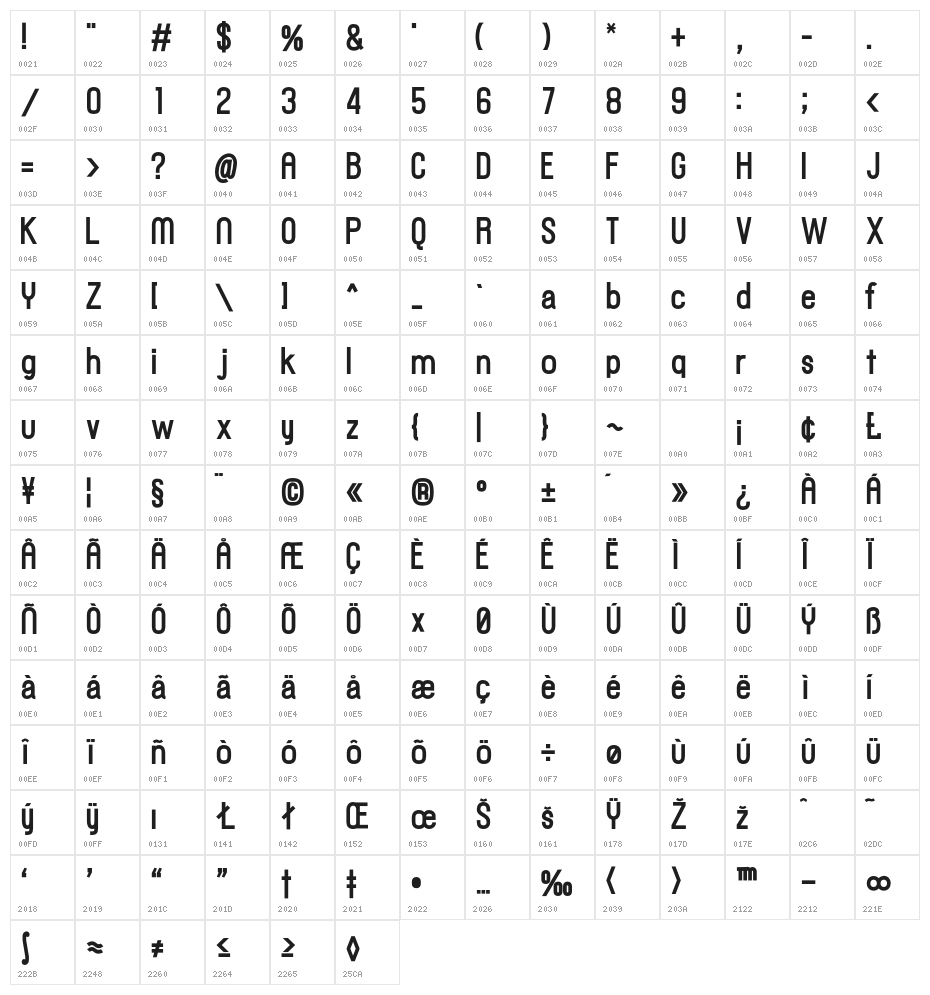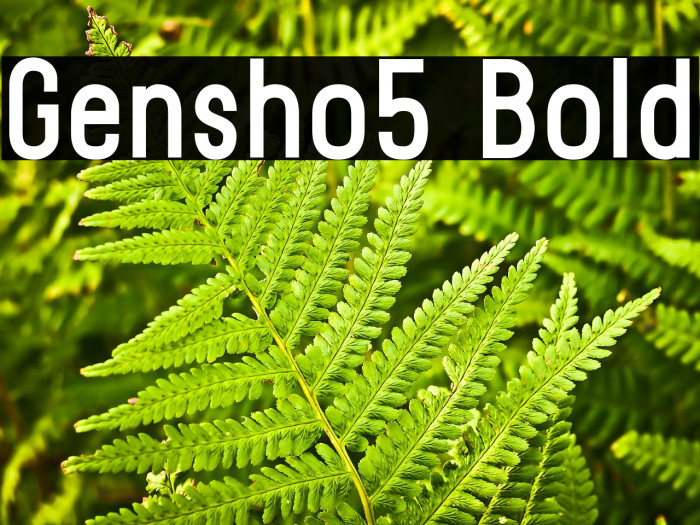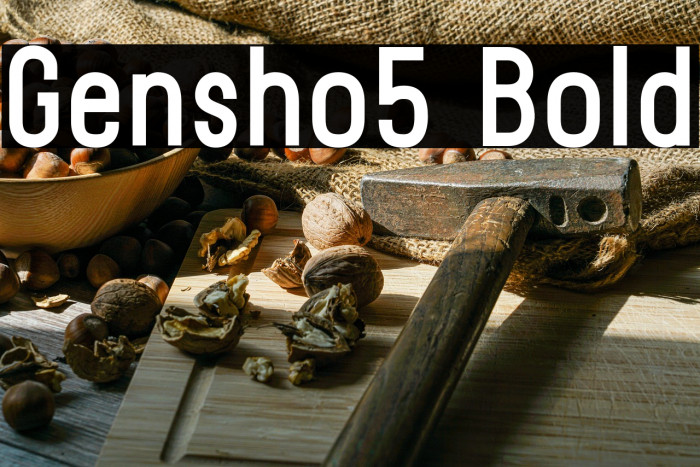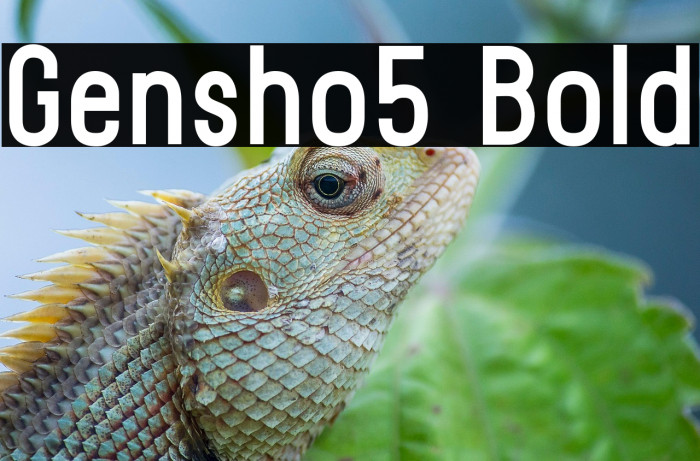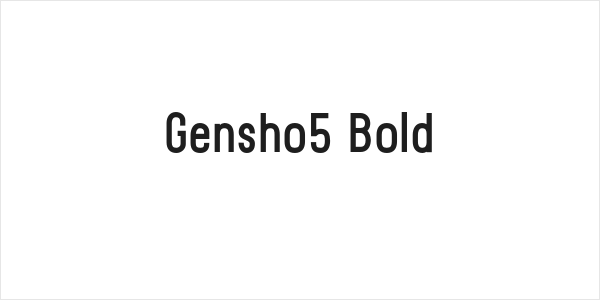
Gensho5 Bold Font
Gensho5 Bold Description
This font exhibits a bold and modern sans-serif style with clean lines and a geometric structure. The uppercase letters are tall and uniform, while the lowercase letters maintain a consistent height, contributing to a balanced appearance. The numerals are clear and straightforward, ensuring readability. Special characters are well-defined, enhancing the font's versatility. The overall design is sleek and contemporary, making it suitable for a variety of applications.